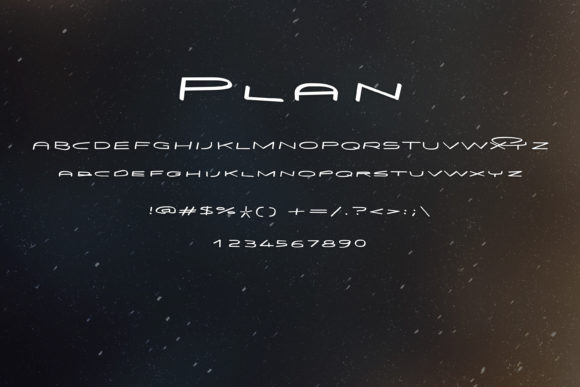
Introduction to Plan Font
Remember that moment when a single font can elevate an entire design project? For designers, it’s a rush of excitement and a dash of relief. And if you’re one of them, you might be on the lookout for the perfect display font to give your creative project that extra oomph.
Enter the Plan Font – a beautifully crafted, slightly tilted display font that exudes both elegance and personality. With its unique, timeless appeal, it’s no wonder designers are falling in love with this design resource.
Key Features of Plan Font
- High-quality, professional font design suitable for creative projects and presentations.
- Unique characteristics include a clean, modern aesthetic and a wide range of customizable options.
- Includes a comprehensive character set, covering a wide range of languages and alphabets.
Honest Review: Plan Font
I recently stumbled upon Plan Font while searching for a free download to enhance my creative project. As a designer, I’m always on the lookout for high-quality design resources that can elevate my work. Plan Font did not disappoint.
One of the standout features of Plan Font is its high quality and versatility. It’s perfect for a variety of creative projects, from editorial design to branding materials. I was particularly impressed by the font’s transparent background, which made it easy to layer and arrange elements.
- ⚠️ Limited character set, which can be a drawback for long-form content
Overall, I’m thoroughly impressed with Plan Font. Its high quality and versatility make it a valuable addition to any designer’s toolkit. While it may have some limitations, I believe it’s a solid choice for creative projects and a great free download.
Plan Font: A Comprehensive Guide
What is Plan Font?
Plan Font is a high-quality design resource that offers a transparent background, making it ideal for creative projects.
To get the most out of Plan Font, use it in conjunction with other design resources, such as images and graphics, to create visually appealing designs. You can also experiment with different font sizes and styles to add emphasis to your designs.
Plan Font is commonly used in a variety of creative projects, including business presentations, social media graphics, and marketing materials.